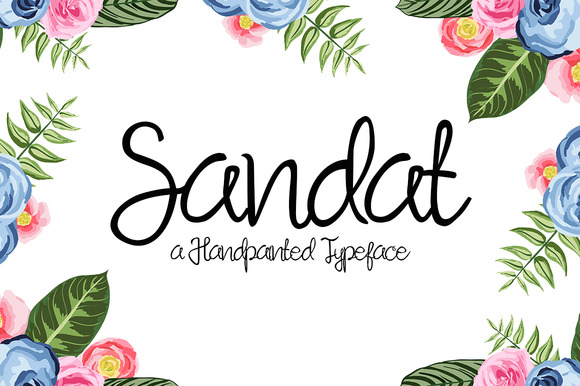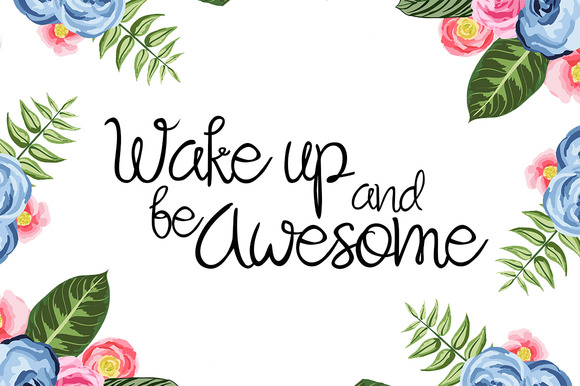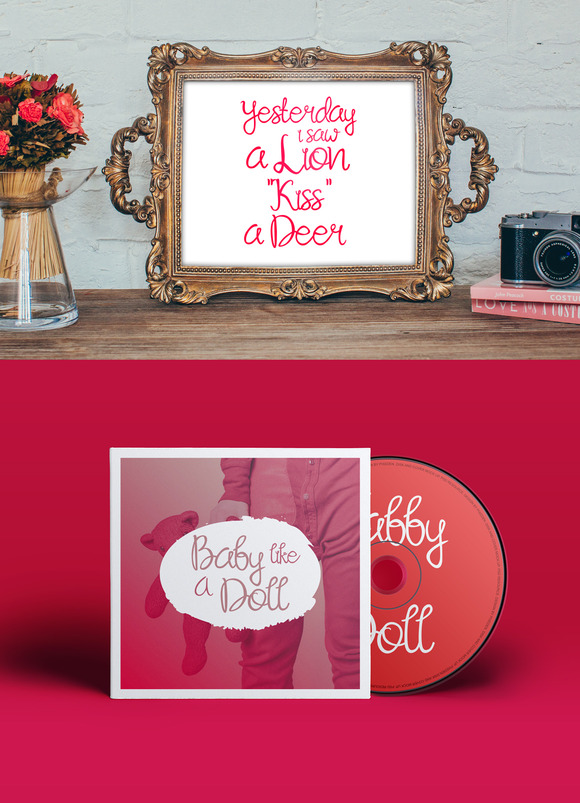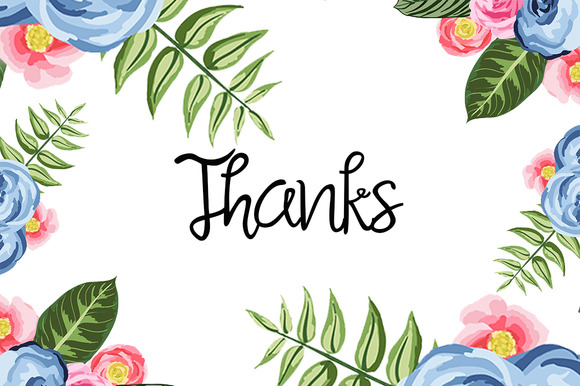
Sandat Script
Sandat Script Font
Sandat is a hand made painted typeface with a customible style it’s perfect for creating a wedding invitation (Initial), a headline, logotype, and t-shirt/ apparel design.The characteristic of this font is flow with the unique handmade touch characteristic.